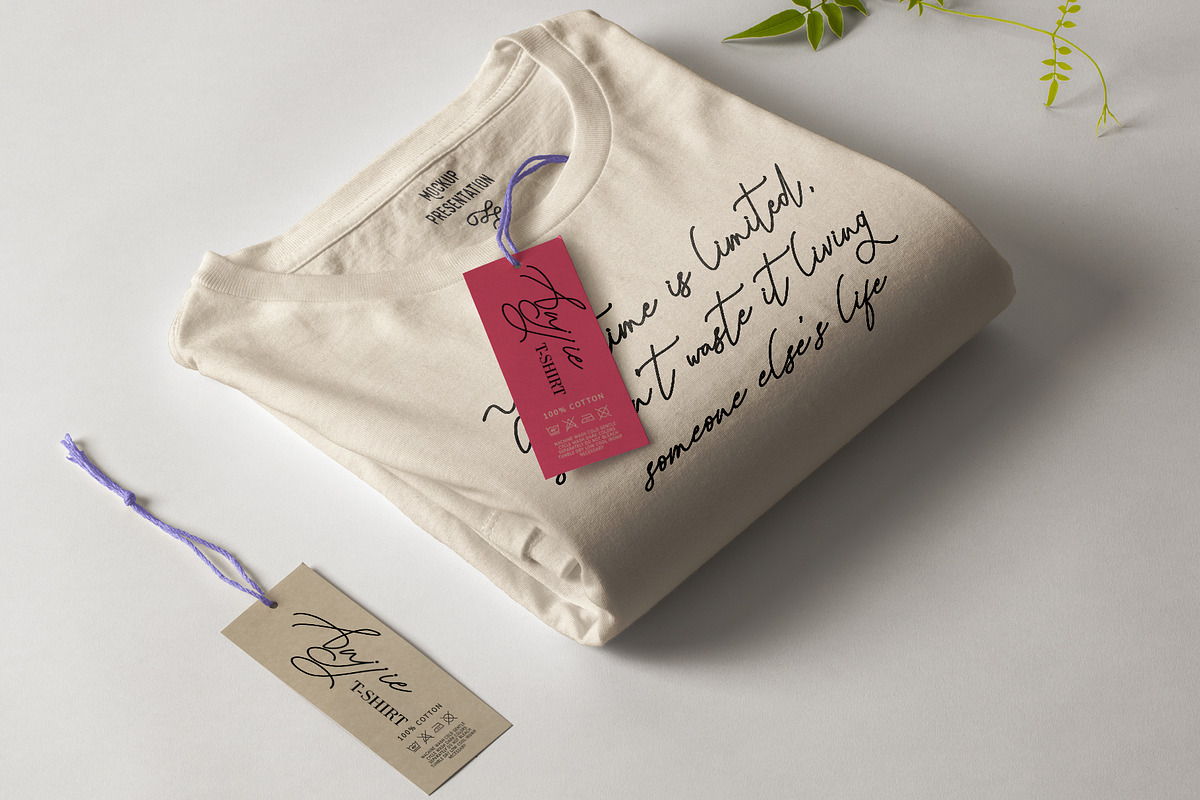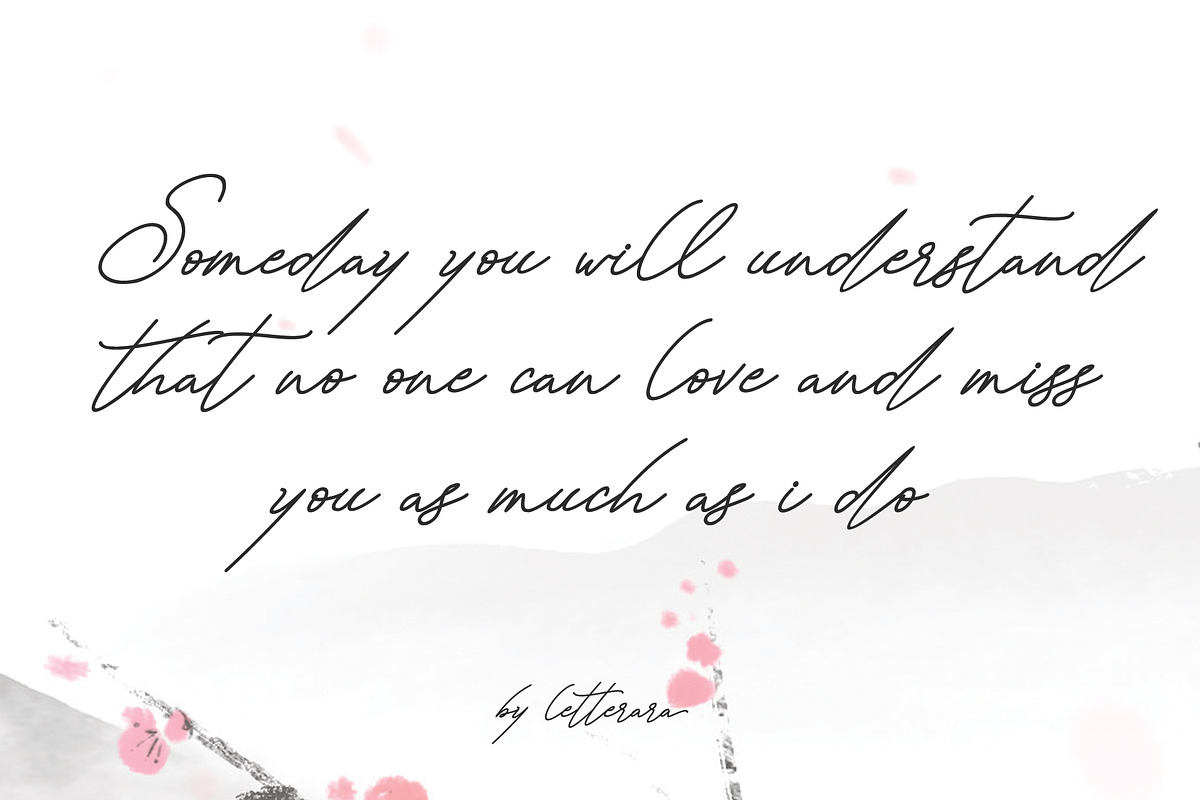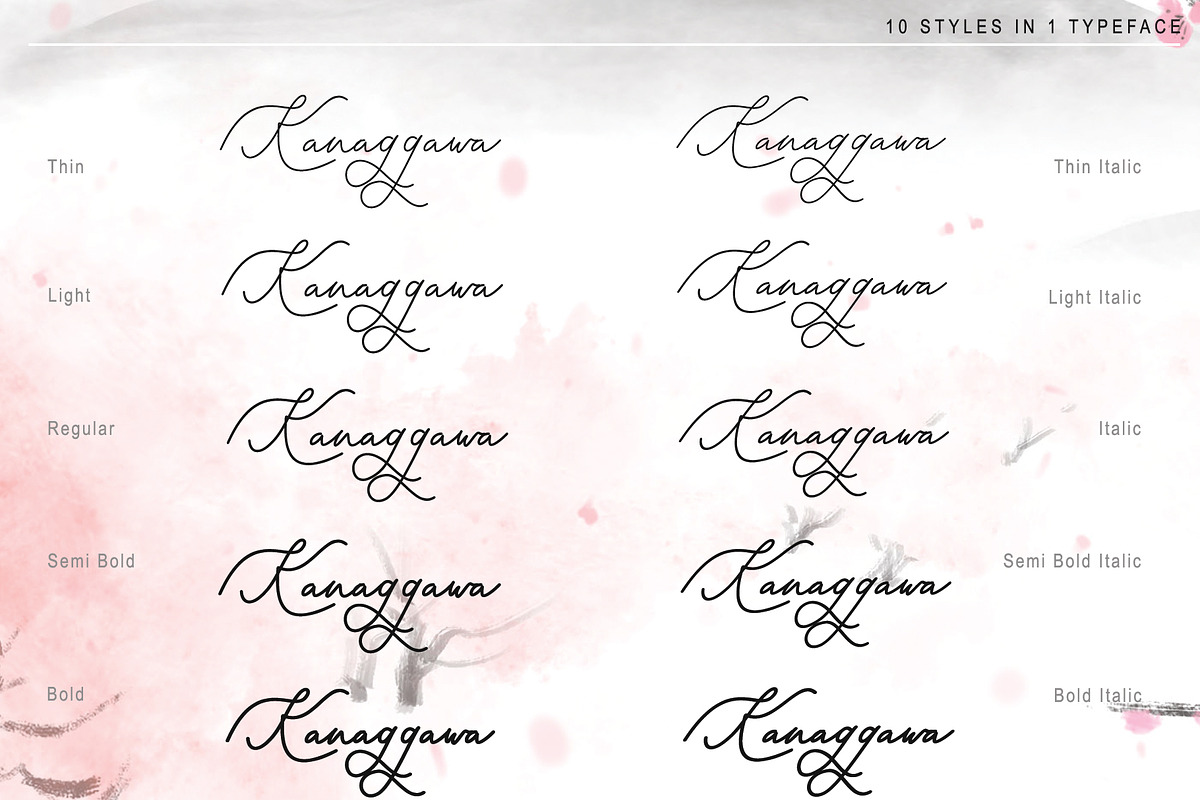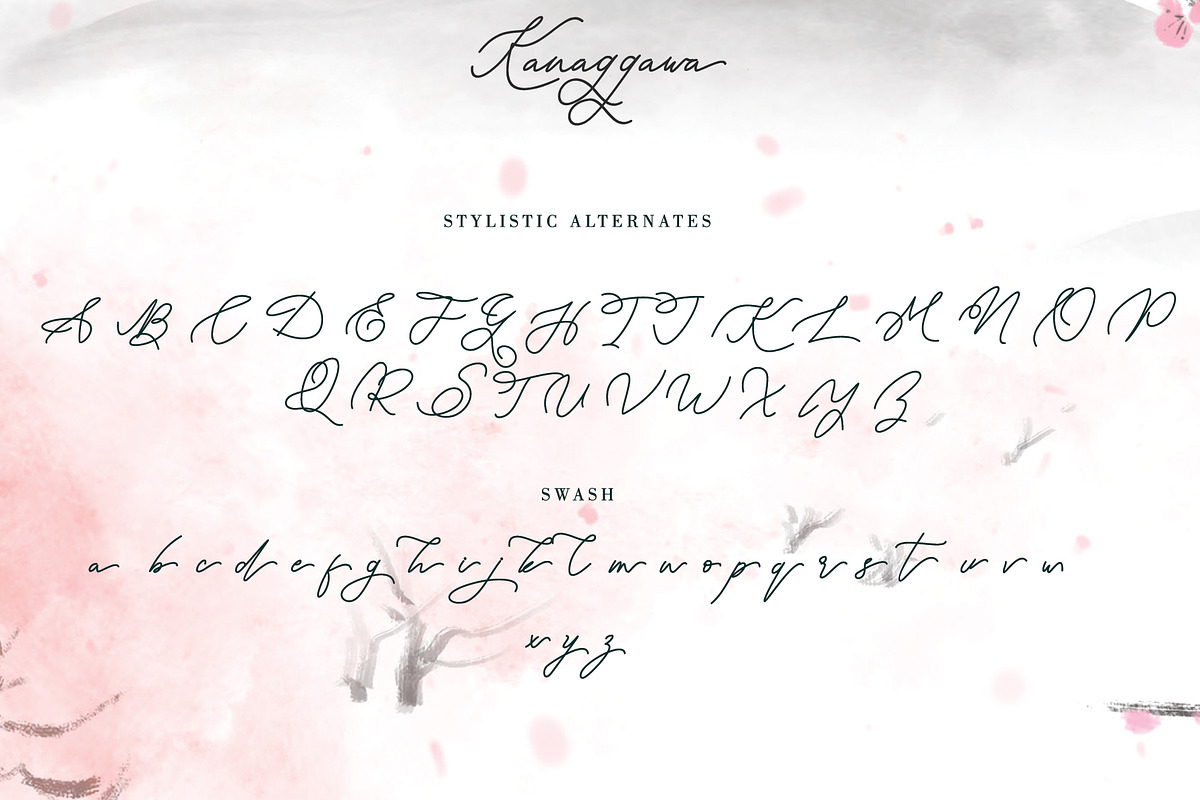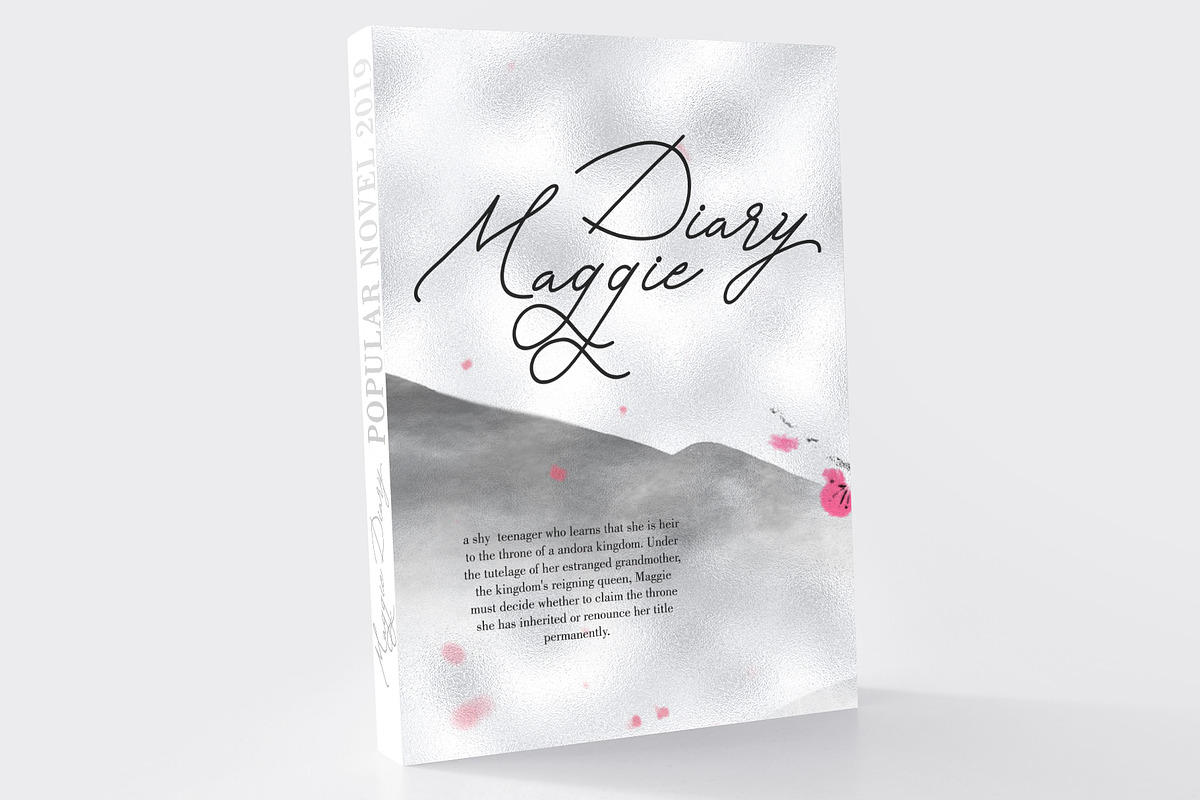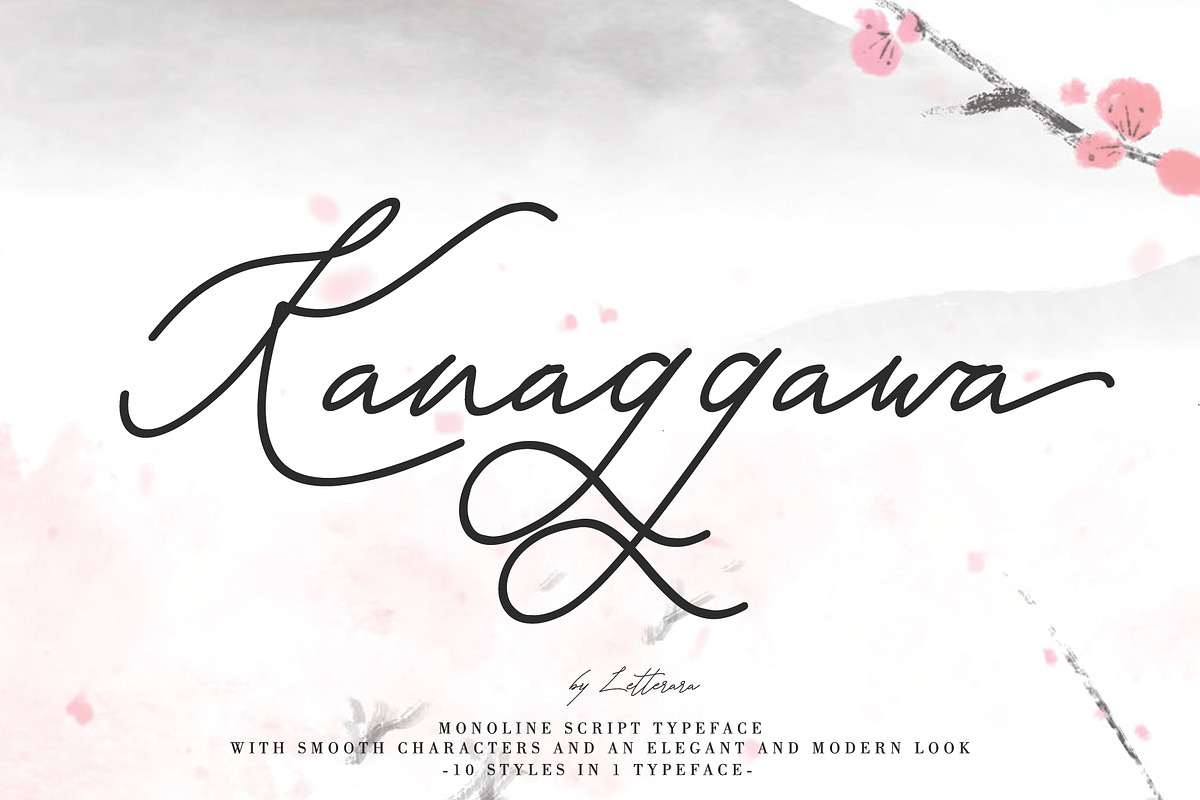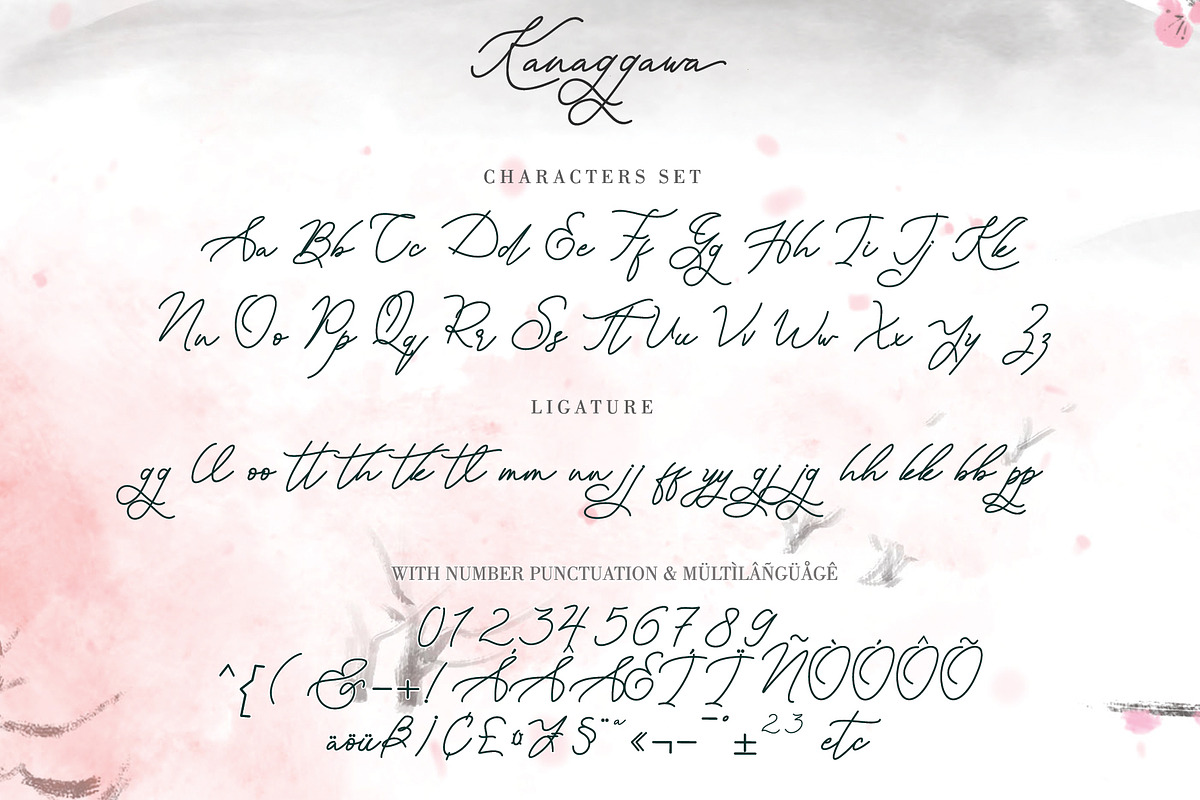
Kanaggawa
Kanaggawa font is a Monoline script typeface with smooth characters and an elegant and modern look. Kanaggawa is suitable for logos, signatures, taglines, T-shirts, handwritten quotes, product packaging, posters, and much more! Add Kanaggawa, a beautiful script font, to your collection today.
- 10 Styles in 1 typeface
- Upper Case & Lowercase